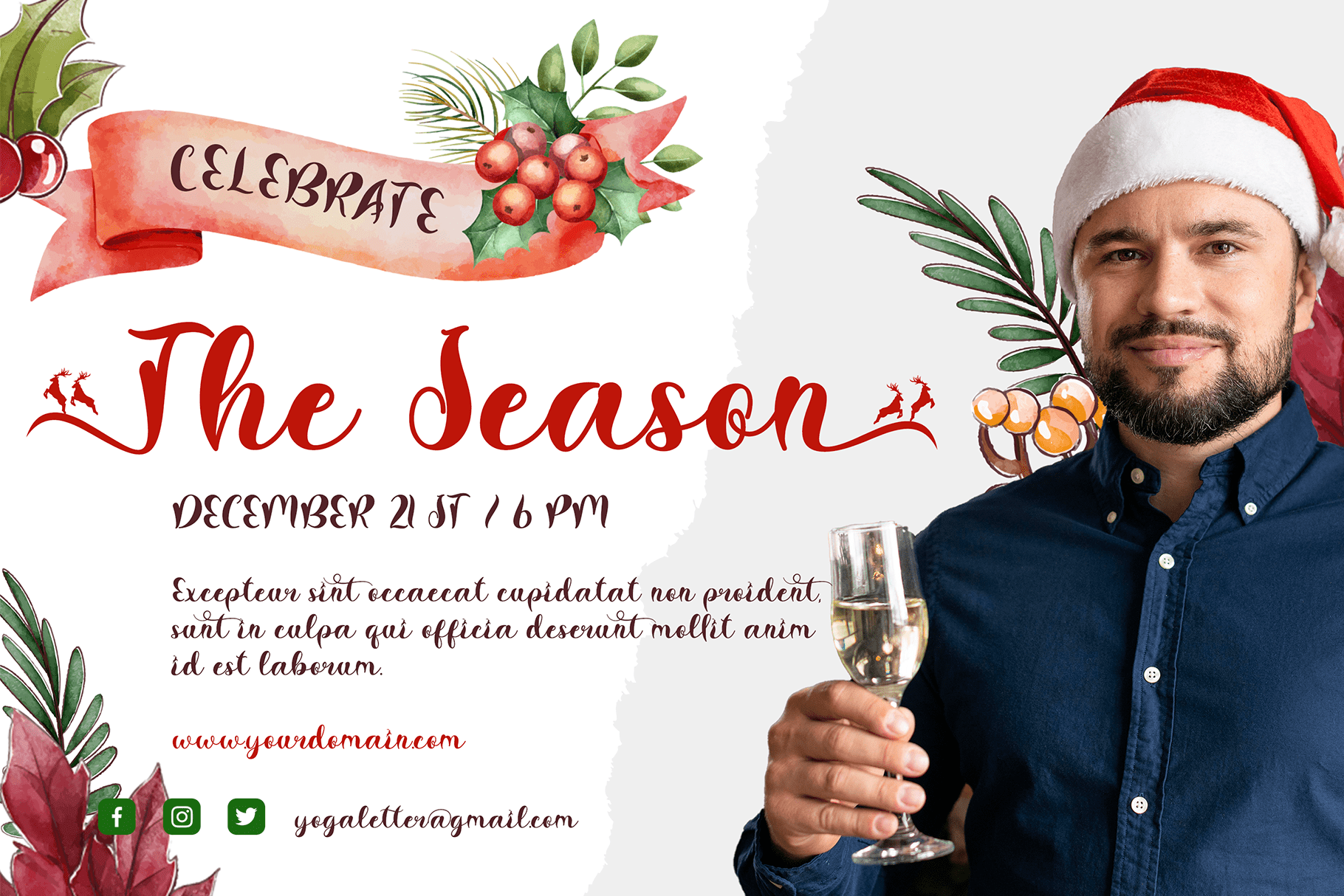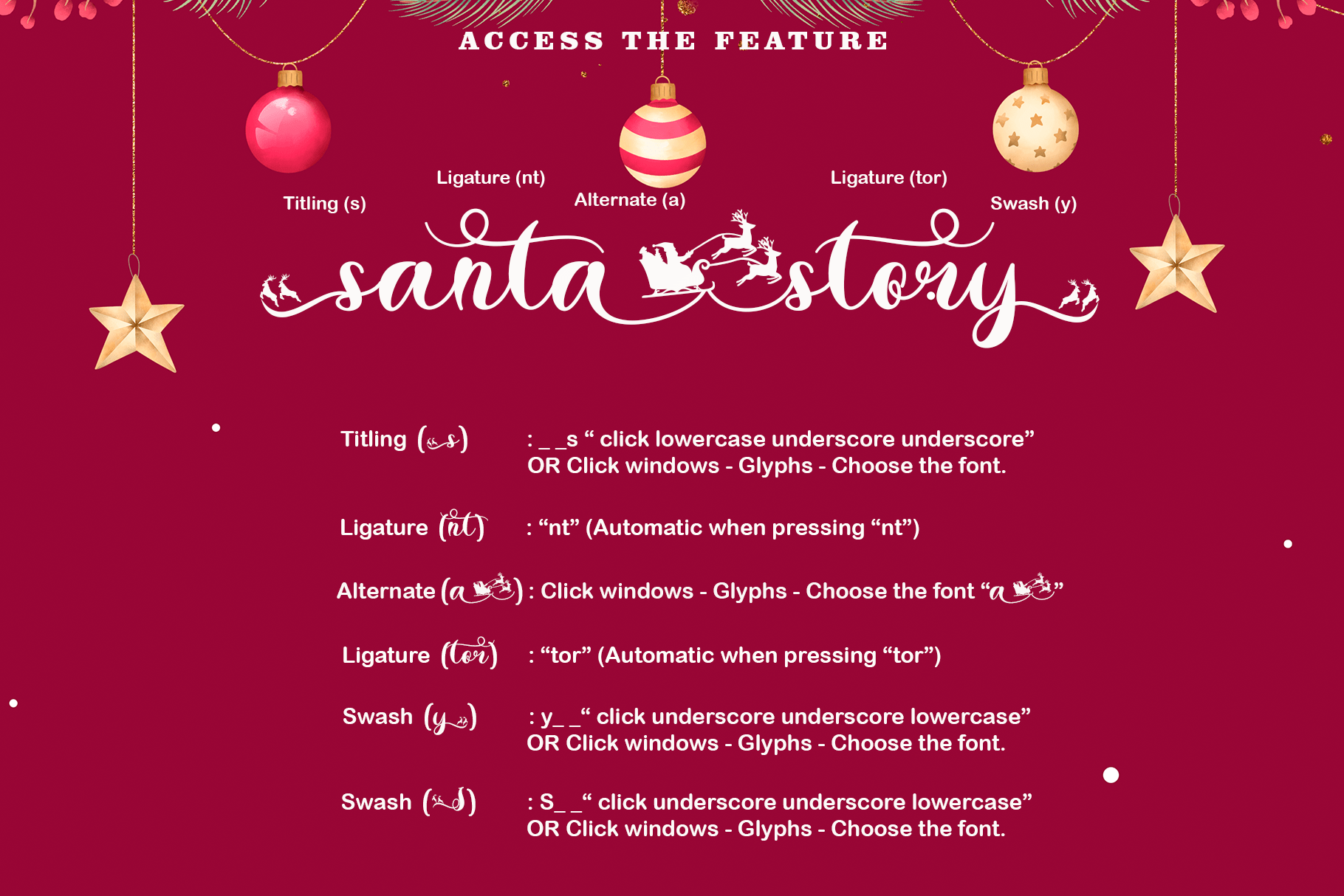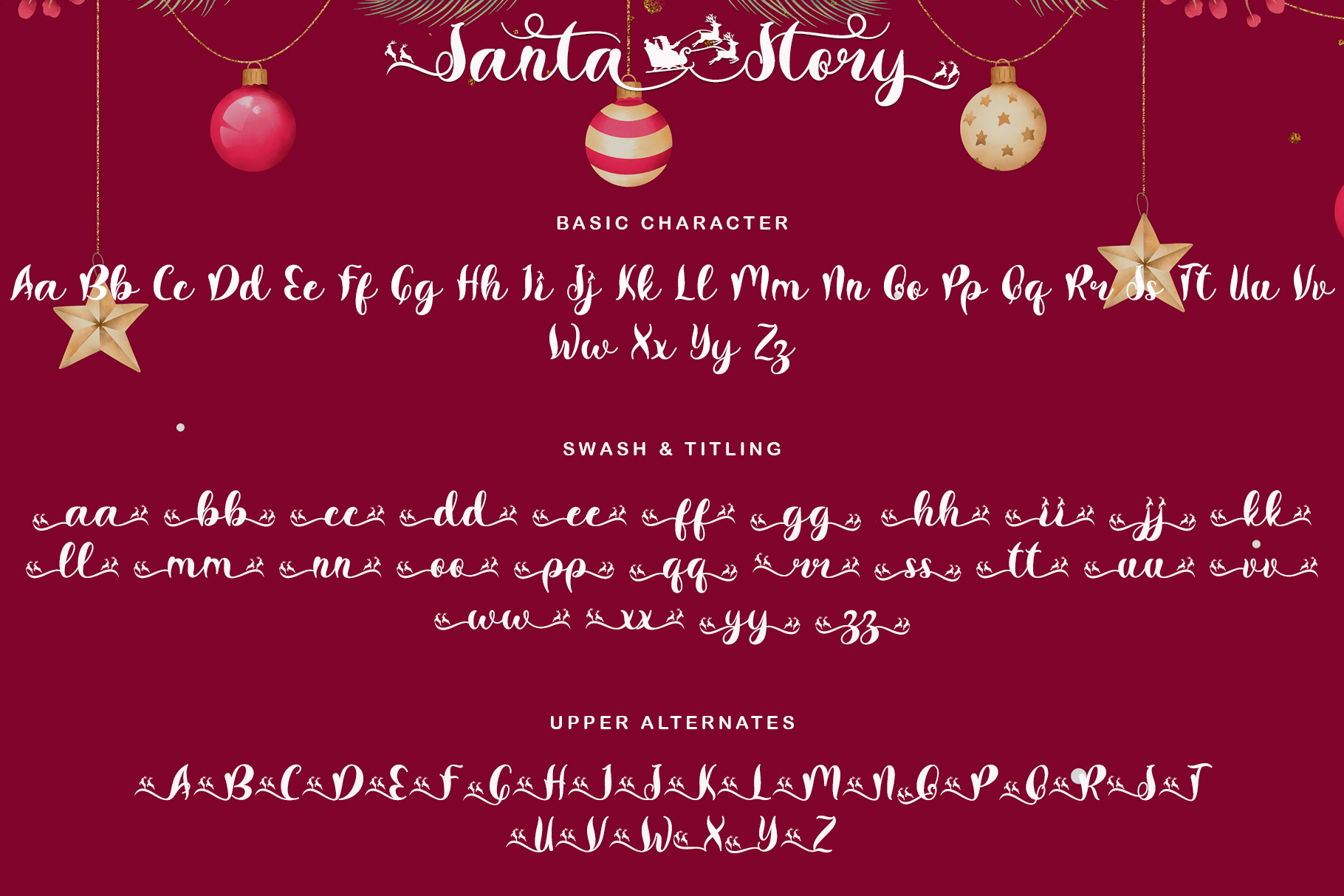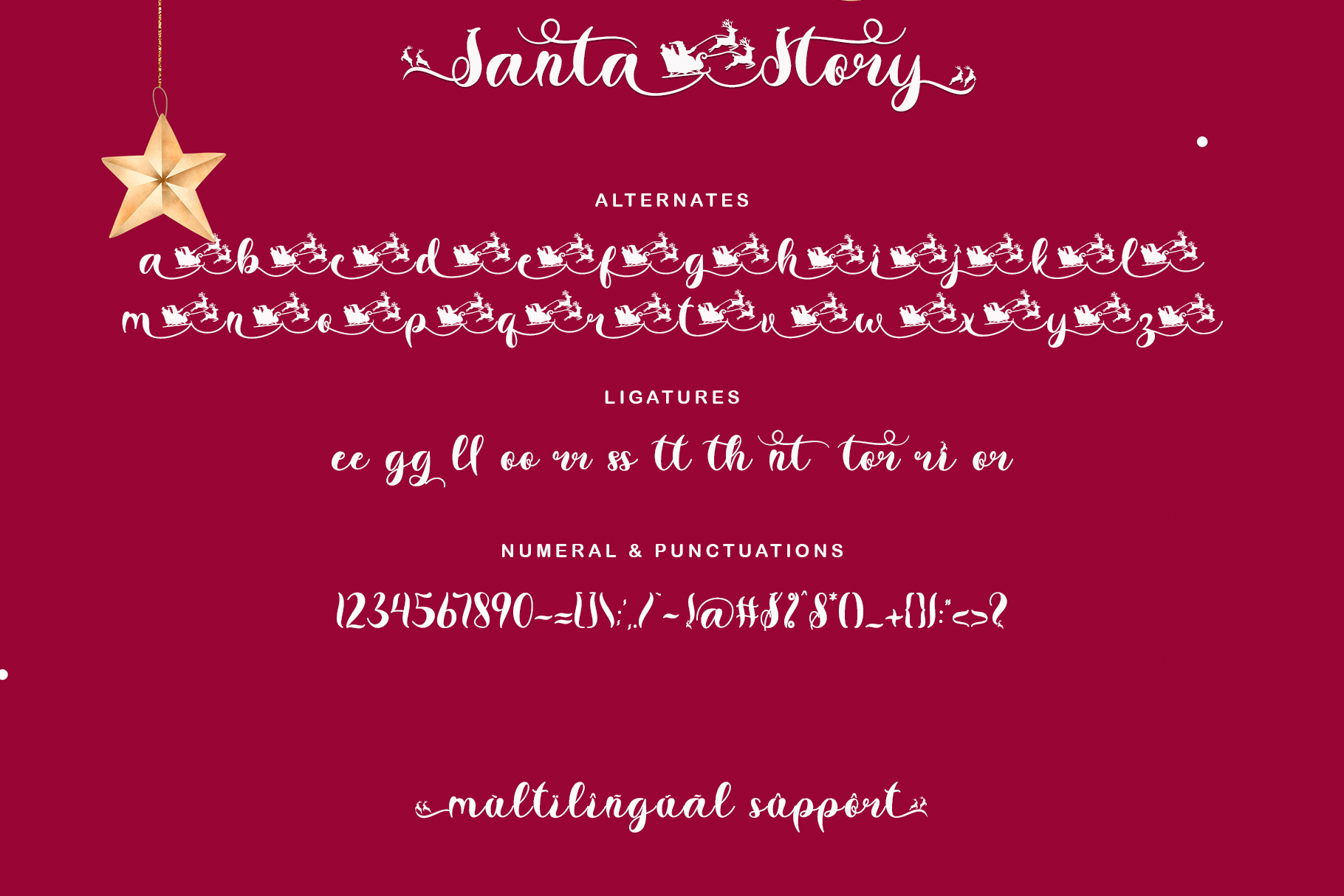
Santa Story Font
Santa Story Script Font
It’s a special Christmas font but can be used for any type of work. This font has a unique design with ornate lettering santa equestrian. This font is very easy to use, because it has been specially designed and there is also a guide on how to use it in the preview. “Santa Story” is equipped with uppercase and lowercase letters, alternative uppers, swash and titling, alternates, ligatures, numerals and punctuations, as well as multilingual support.